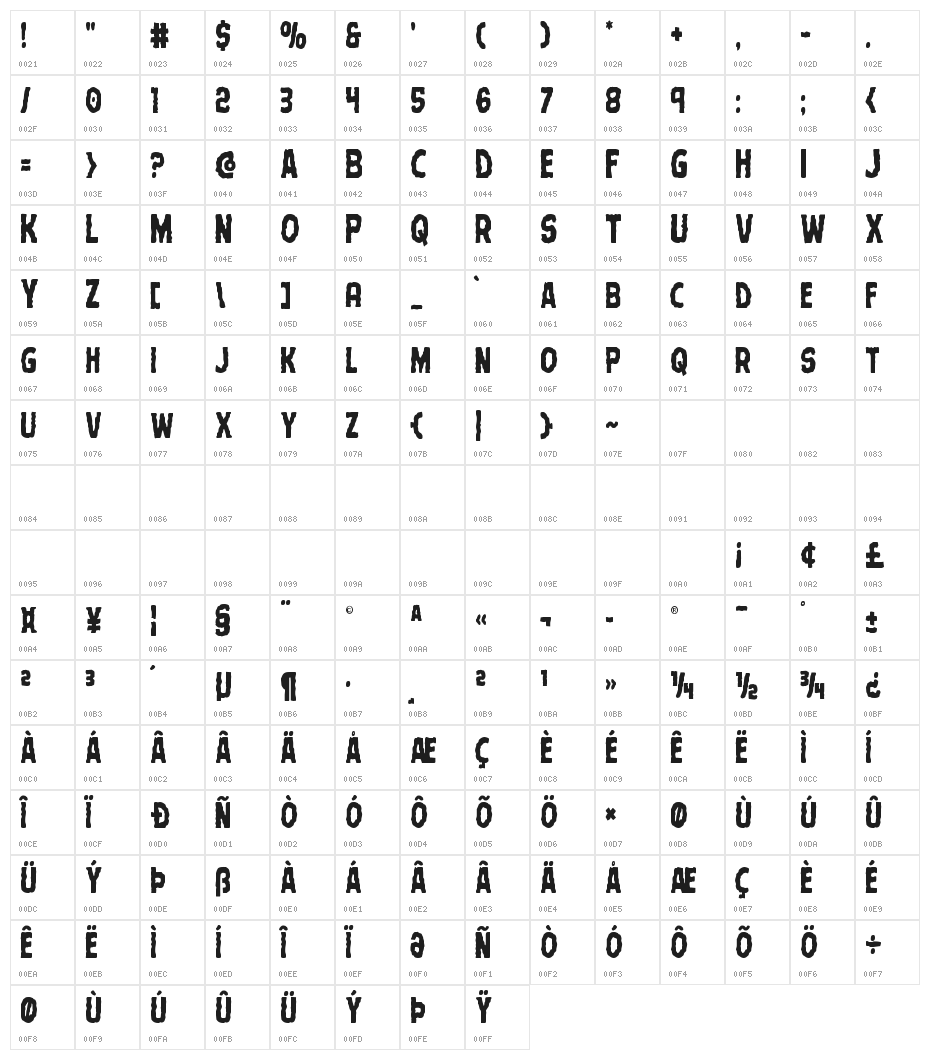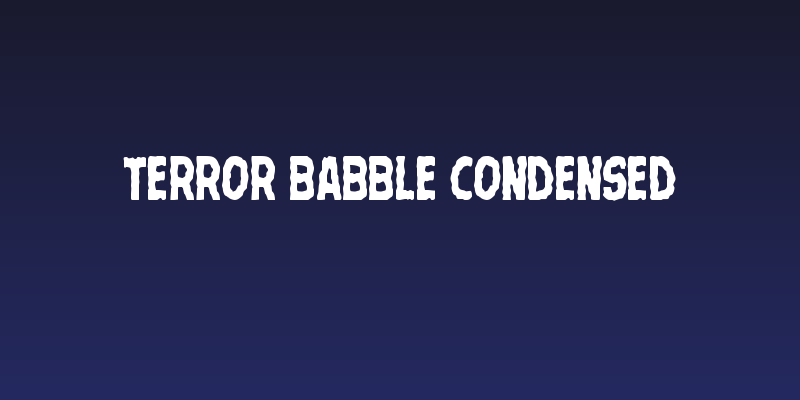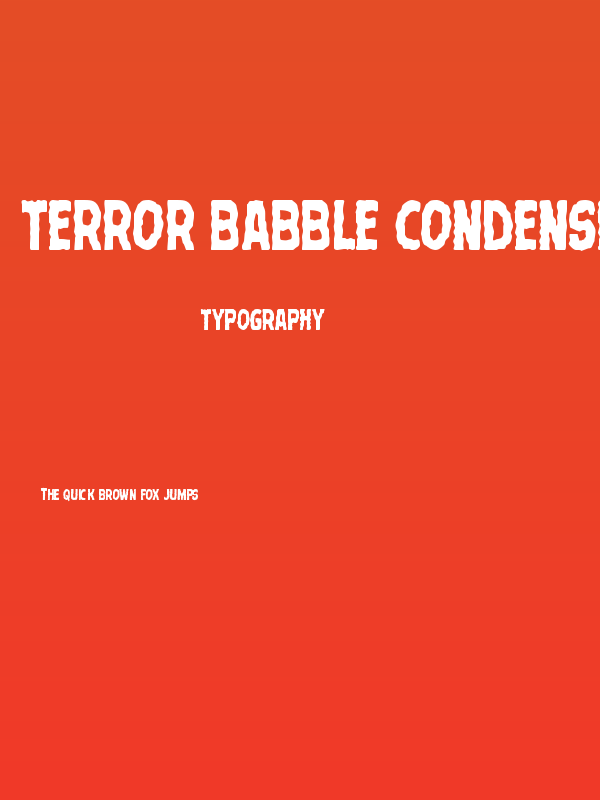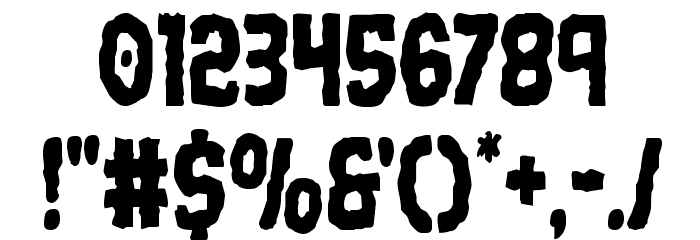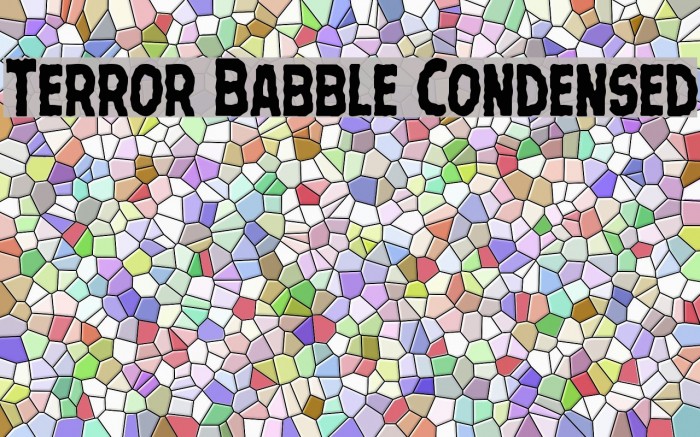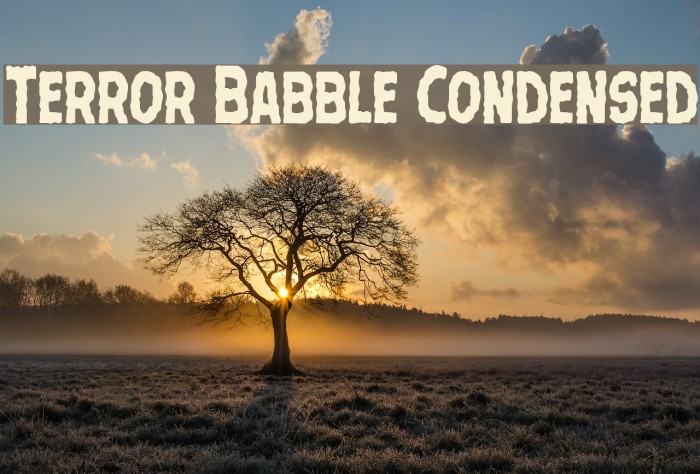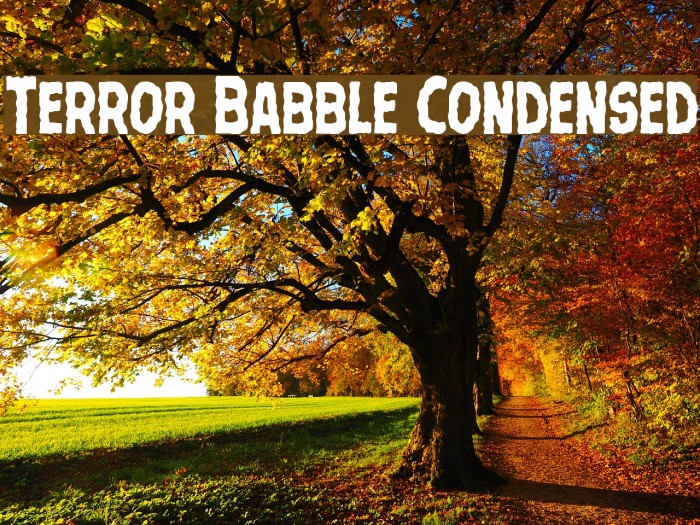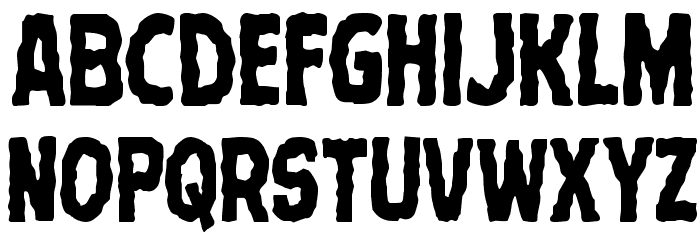
Terror Babble Condensed Font
Terror Babble Condensed Description
This font features a bold and condensed style with a rough, hand-drawn appearance. The characters have an uneven, jagged edge that gives them a distressed and grungy look, reminiscent of horror or thriller themes. The uppercase and lowercase letters maintain a consistent height, contributing to its compact and dense appearance. The numbers and special characters follow the same rugged design, ensuring uniformity across all glyphs. This font's unique style makes it stand out, perfect for creating an impactful visual presence.
| Proposed Projects | Ideal for horror-themed posters, Halloween invitations, edgy branding, or any project needing a dramatic and intense visual impact. |